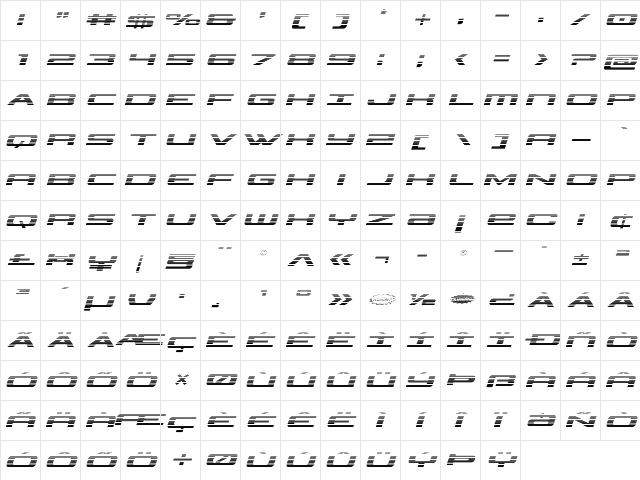
Classic Cobra Gradient Italic Italic Font Preview
Design Context for Classic Cobra Gradient Italic Typeface
Classic Cobra Gradient Italic wears its vintage influences proudly, with letterforms that recall mid-century signage, classic packaging, and nostalgia-driven design. The slanted form adds forward momentum and visual energy.
Font Pairing: Combine Classic Cobra Gradient Italic with a simple slab or neutral sans — period-accurate companions reinforce the vintage feel without competing for attention.
Pro Tip: Use Classic Cobra Gradient Italic for headlines and pull quotes rather than body copy — its personality is best appreciated in short, focused bursts.